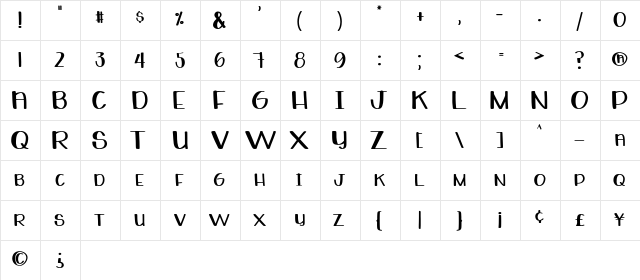
Whiteboard Regular
| Designer | Mindy Armour |
Design Context for Whiteboard Typeface
Whiteboard is a composed and adaptable typeface that performs quietly and consistently across a wide range of design contexts.
Pro Tip: Pair Whiteboard with a font of contrasting weight or personality to build a more expressive typographic hierarchy.